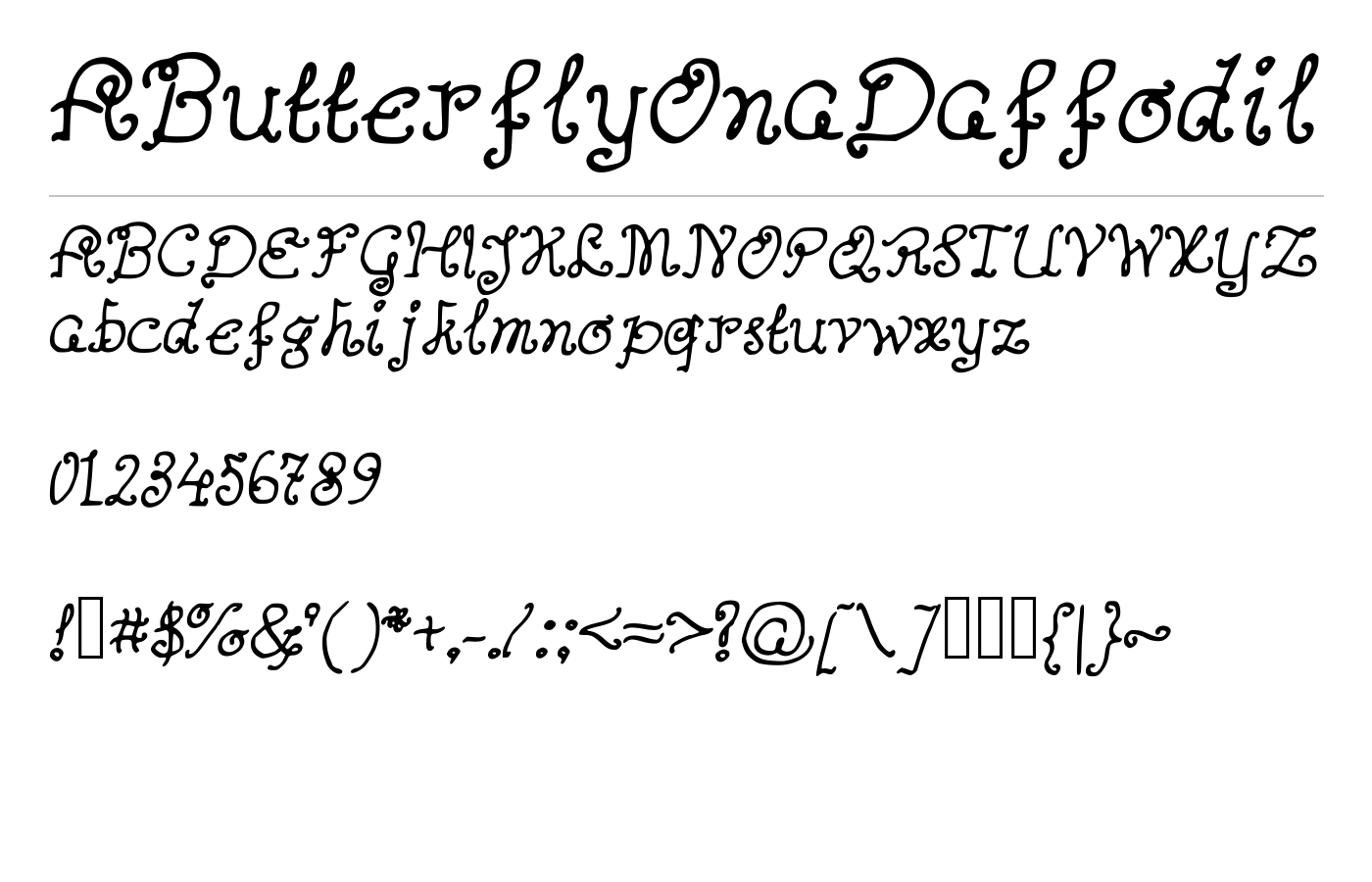
AButterflyOnaDaffodil is a whimsical, decorative script font characterized by its playful curls and flourishes on both uppercase and lowercase letters. Its moderate weight and lively stroke endings give it a charming, handcrafted feel that suits creative and artistic projects, making it ideal for invitations, greeting cards, or branding that seeks a unique and charming personality. This font shines in headline or display use where its distinctive style can add a touch of elegance and fun.
AButterflyOnaDaffodil Font